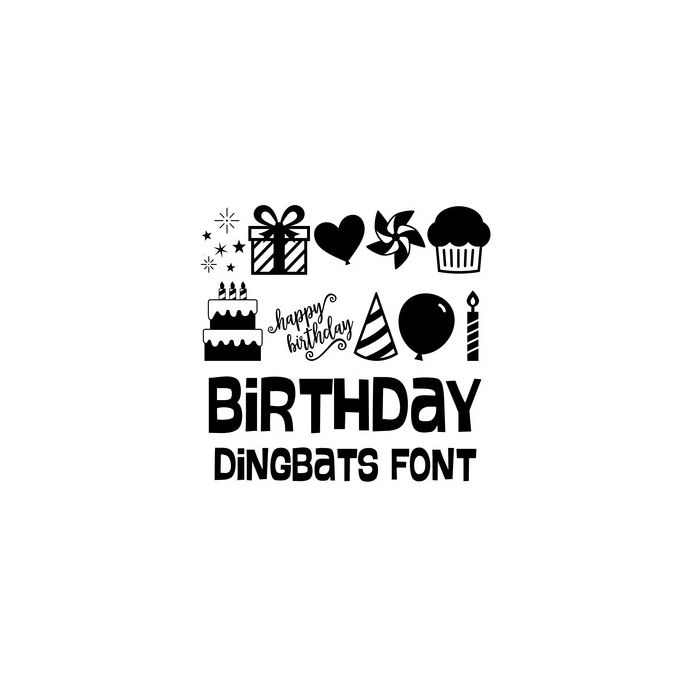
birthday dingbats font
This cute dingbat font includes 26 birthday icons that you can type + cut. Make adorable birthday projects with ease with this fun font.